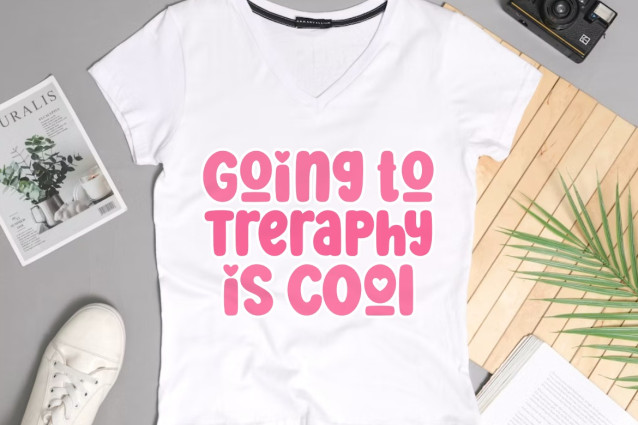
Honey Bubble Font
Honey Bubble Font is a cute bubble display font that radiates sweetness and joy, designed to bring a playful touch to your creative projects. With its thick, rounded letterforms and charming heart accents integrated into the characters, this typeface is perfectly crafted for projects that require a warm, affectionate, and bubbly vibe. Its clean and bold construction makes it highly versatile and easy to use for various design applications.